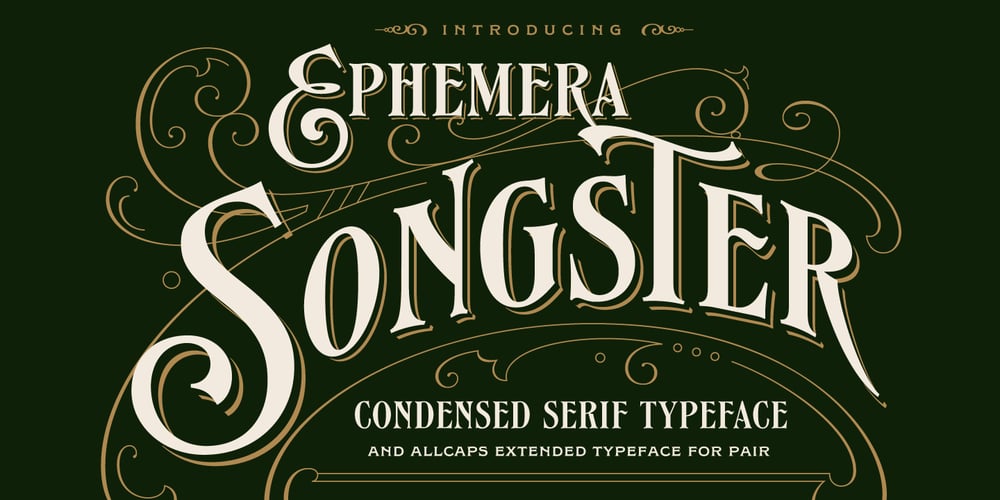
EFCO Songster
EFCO Songster font
EFCO Songster Font Family was designed by Ilham Herry and published by Ilham Herry. EFCO Songster contains 4 styles and family package options. Inspired by the Vintage Song Sheet Cover from the 19th Century. Thick n thin with a serif typeface, Comes with 2 style All-caps (Regular and Line Shade) and is also available with pair font and ornament extras. OpenType features support stylistic alternate characters to give a unique personality to the typography composition.Suitable for display needs such as signage, poster, logo, label, headline, cover design, etc